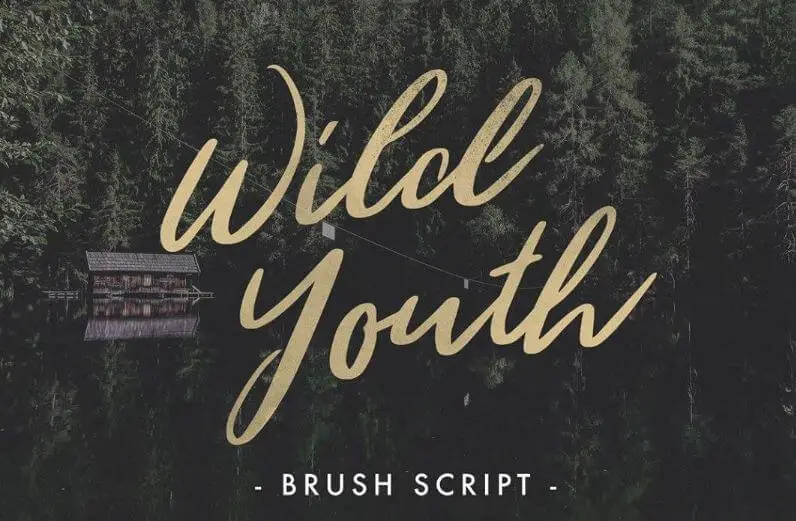
Wild Youth Font is yet another beautiful hand-drawn brush script font that resembles Adreena Script and Sacramento from Hustle Supply Co. It is one of the famous handwriting fonts that look like the woodlands, summer hearts and Quentin fonts. Wild adolescence is a cutting-edge font with the designated have an effect on of adventure and the quality outdoors.
Each and every designer has approved the uniqueness and clearness of this fancy font. And we additionally accept that the designer has carried out their goal via wild adolescence font. Superb for emblems, charges, stationery, attire and rather more.
Design Of Wild Youth Font
This satisfactory excellent typeface that is similar to july seventh has come right into a single average sort along with TrueType facets. This single type has contained 110 number of glyphs together with uppercase, lowercase, foreign money signs, and so forth.
Additionally, it has 114 number of characters with various worldwide language support. This means that the coolest font can use in a large field.
If you wish to decide it deeply then you can find the letter form preview in portraits we inserted in here. That helps to comprehend this tremendous cool font higher.
That you may create based books cover, logo designs, brochure design, banners advertisements, as well as many others. We believe this strong font that is similar to fusterd brush, Quentin that will aid you in making a high-quality satisfactory layout.